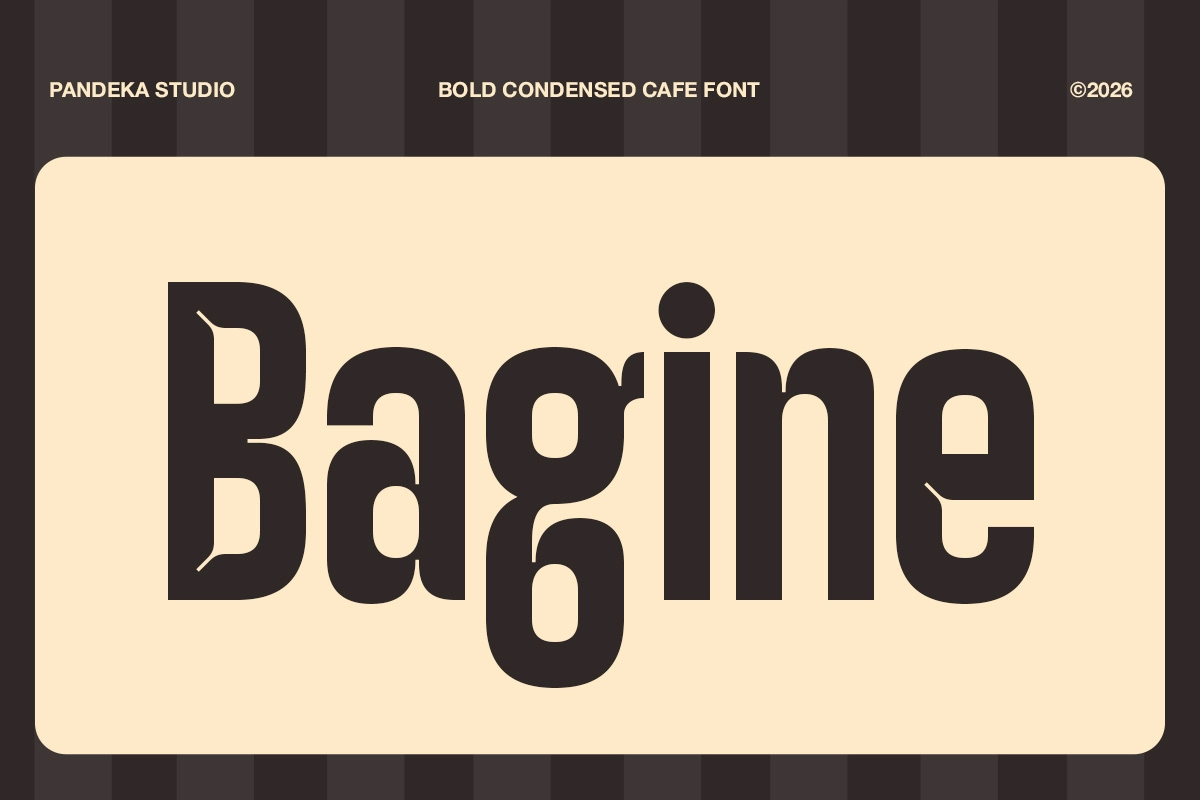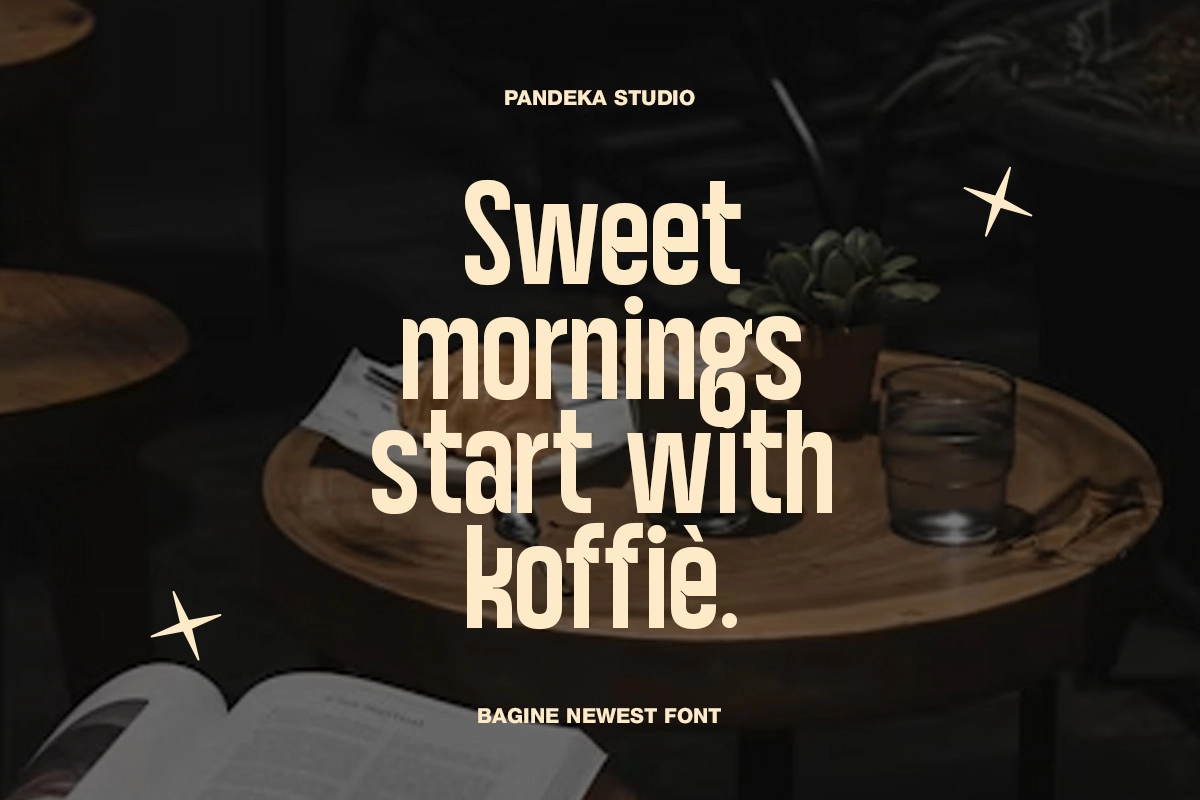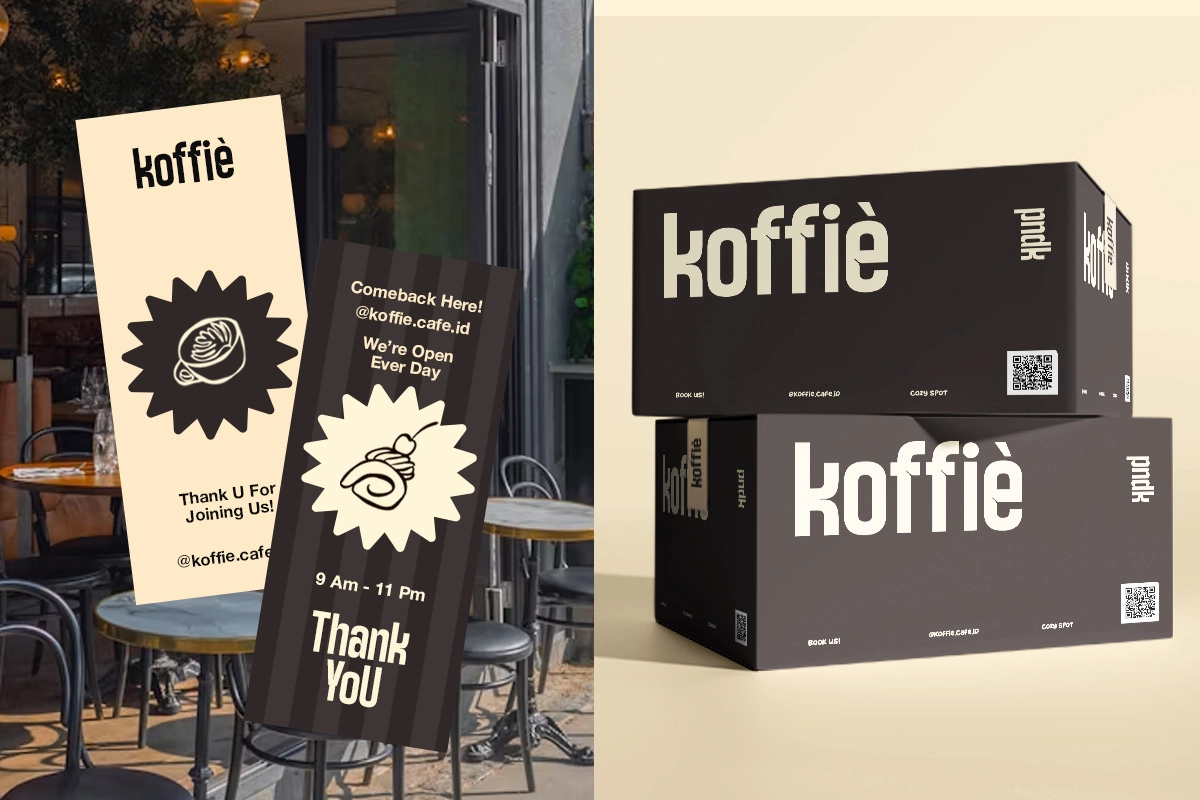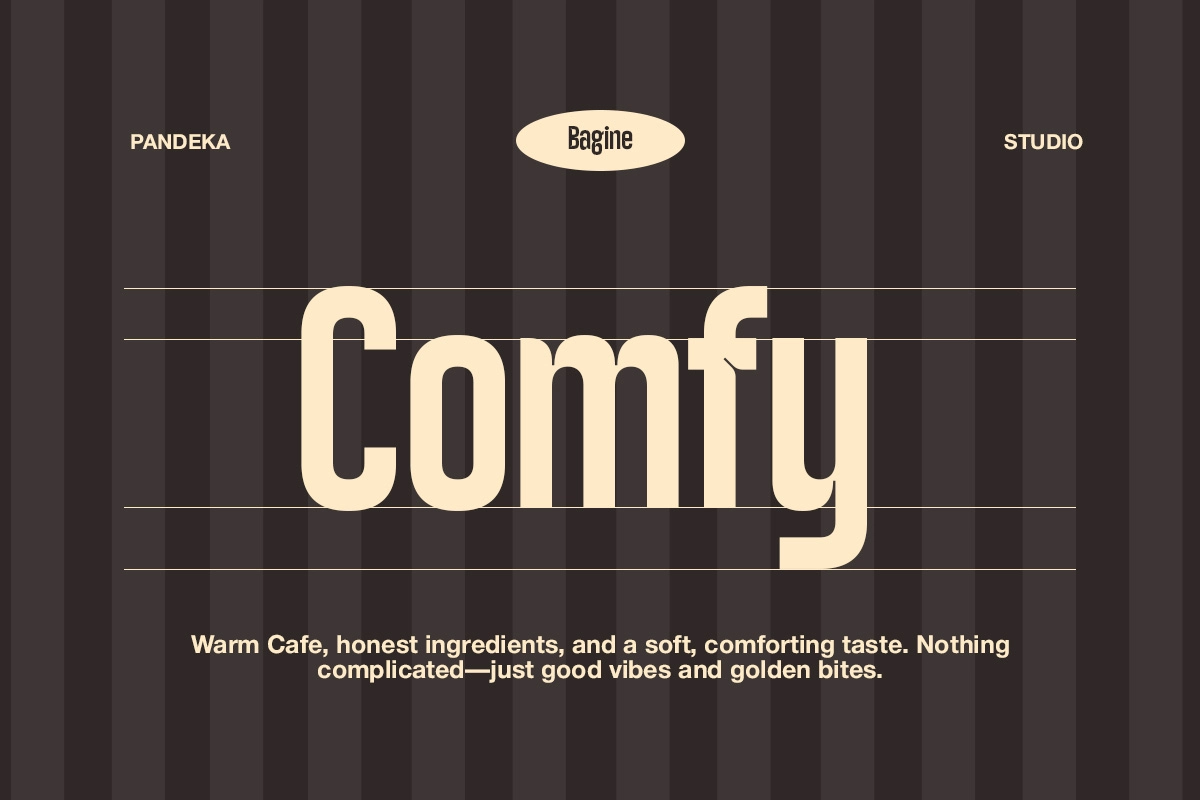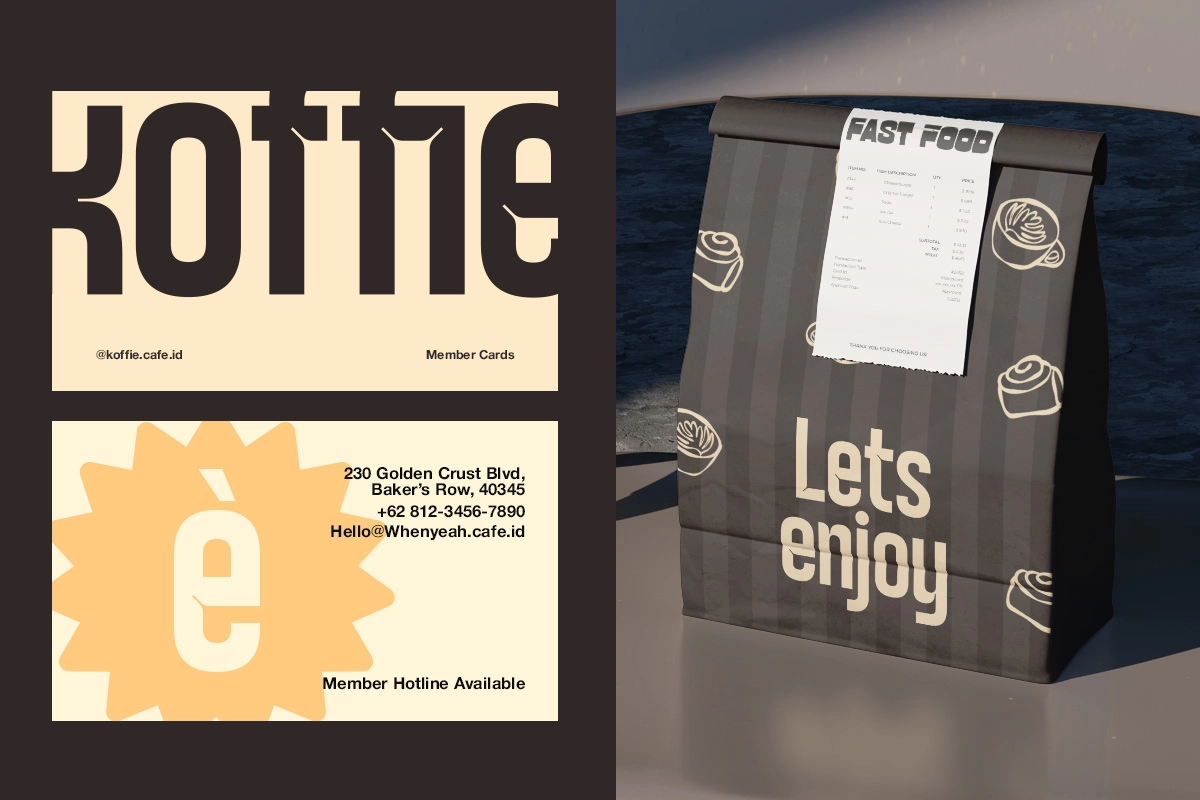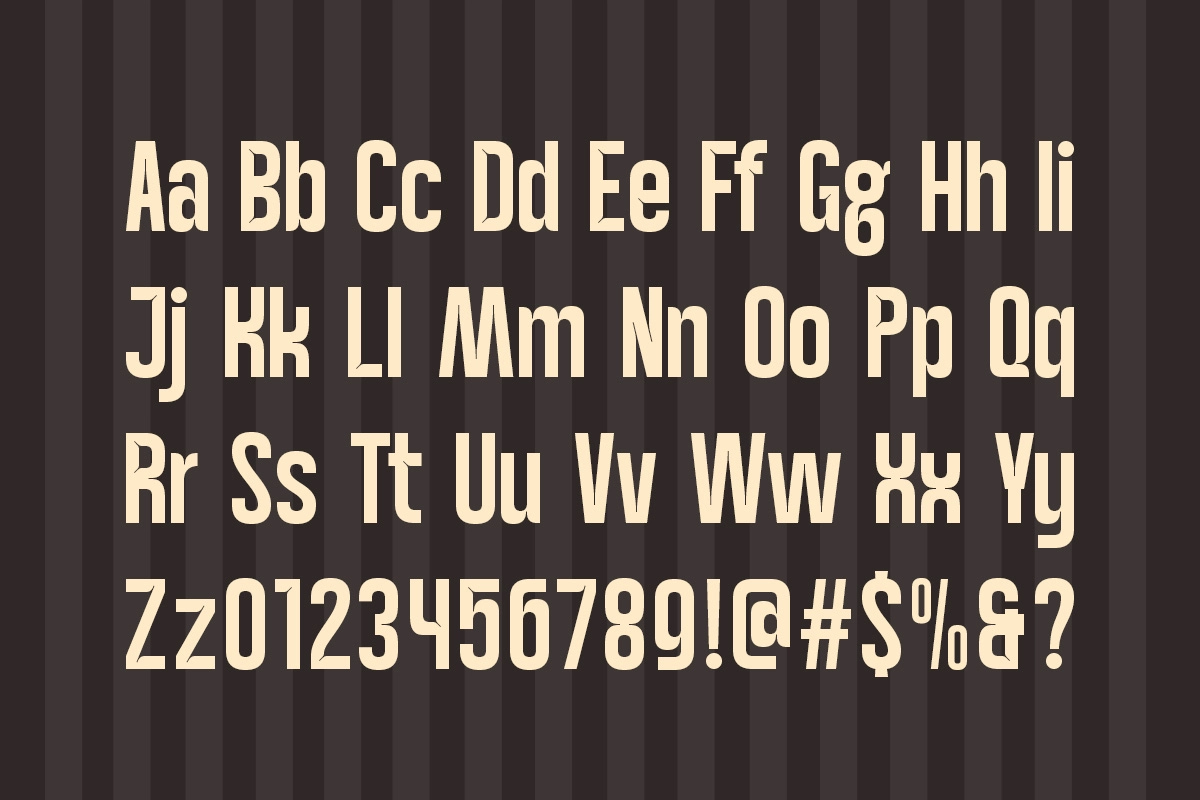
Bagine - Bold Condensed Cafe Font
Bagine is a bold tall display font with chunky condensed letterforms, flat-cut strokes, and small curled flourishes on tails and descenders, echoing mid-century diner signage and hand-painted bakery boards. The heavy weight holds up at large sizes and reads closer to a hand-lettered shop sign than a standard display face.
Bagine works best in short, punchy settings where a headline needs warmth without losing its edge. Use it for café branding, bakery labels, coffee packaging, menu boards, storefront signage, food festival posters, and social promo graphics.